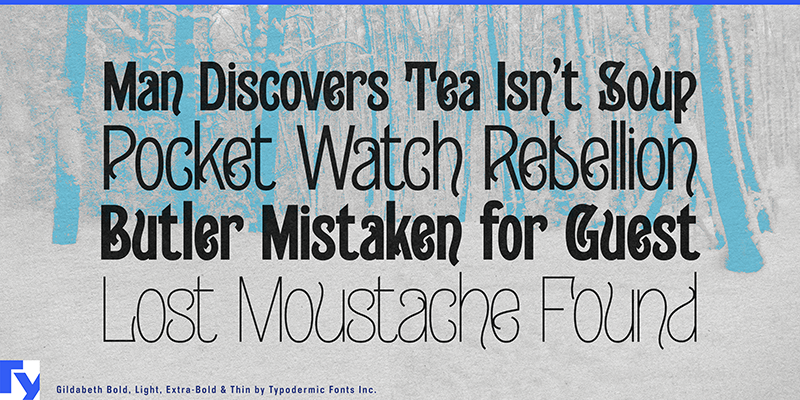
Gildabeth
Gildabeth is a narrow, high-contrast sans serif inspired by the eccentric display lettering of the late 19th century. Drawing on faces like Campanile and Attic, it preserves their quirky modulation and theatrical curves while trimming away the fuss for contemporary use. Its slim proportions pack plenty of drama into tight spaces, making it ideal for headlines, posters, book covers, and bold branding. Rugged strokes give the design a confident, handmade character, bringing vintage flair and expressive energy to modern typography. These fonts include a license that allows free commercial use: sometimes referred to as a desktop license. This allows you to install the fonts on a computer and use them to create posters, web graphics, game graphics, t-shirts, videos, signs, logos and more. Read the license agreement for details. If you'd like to embed this font in an app, on the web or anything that's not covered by the desktop license agreement, visit the link below. You'll find distributors who offer different types of licenses, or you can contact me for help. https://typodermicfonts.com/gildabeth/ These free fonts are part of a larger font family. Check out the rest of the family through the link above.